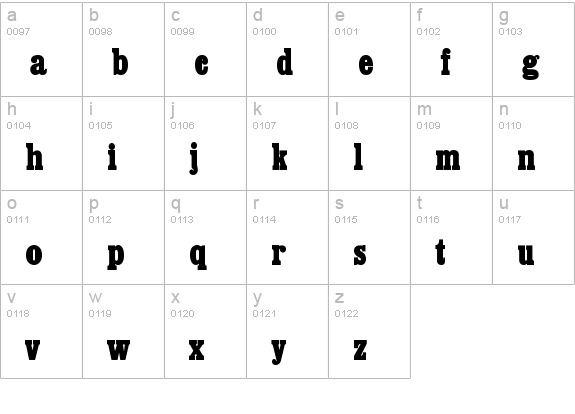
EgyptianEF-BoldCondensed Font Details
EgyptianEF-BoldCondensed is a stunning and powerful typeface that exudes elegance and sophistication. Its bold and condensed design makes it perfect for creating eye-catching headlines and striking design elements. The font's strong lines and sharp angles give it a modern and dynamic feel, making it ideal for use in various design projects. What sets EgyptianEF-BoldCondensed apart is not just its striking appearance, but also the fact that it is available for free download at FontsMarket.com. This means that you can easily access and use this versatile font in your projects without any cost. Whether you are designing a poster, a logo, or any other creative work, EgyptianEF-BoldCondensed is sure to make a bold statement and elevate the overall look of your design. Download this exceptional font today and unleash your creativity with EgyptianEF-BoldCondensed.